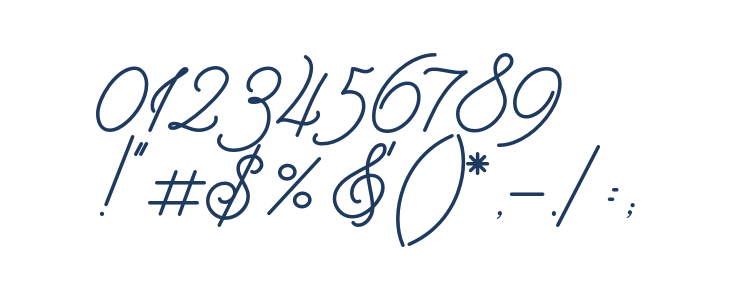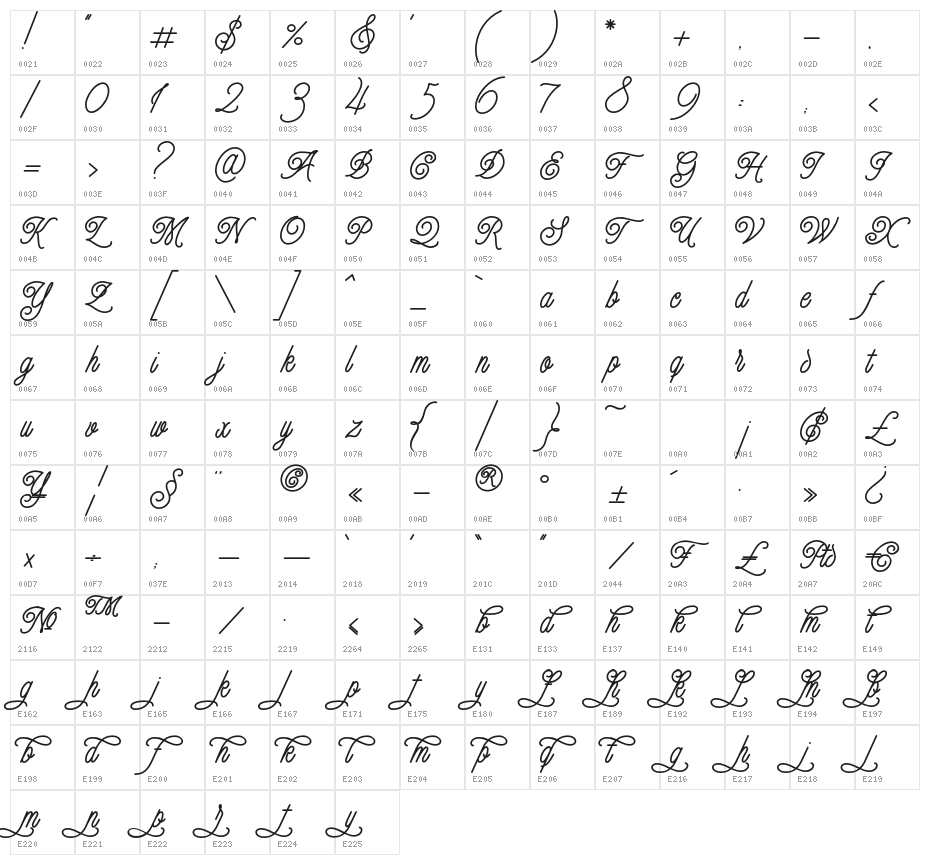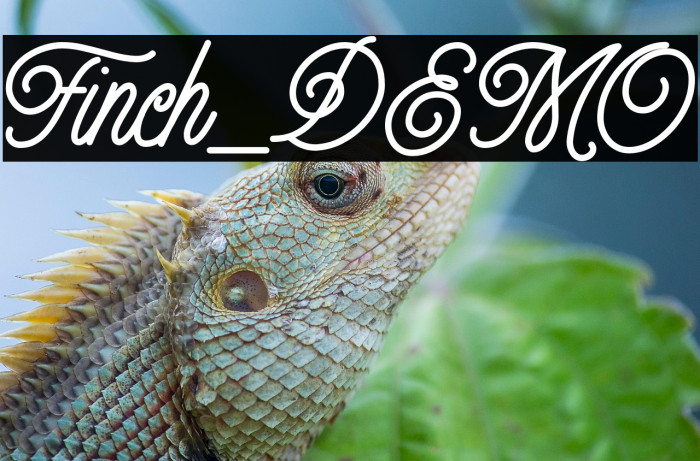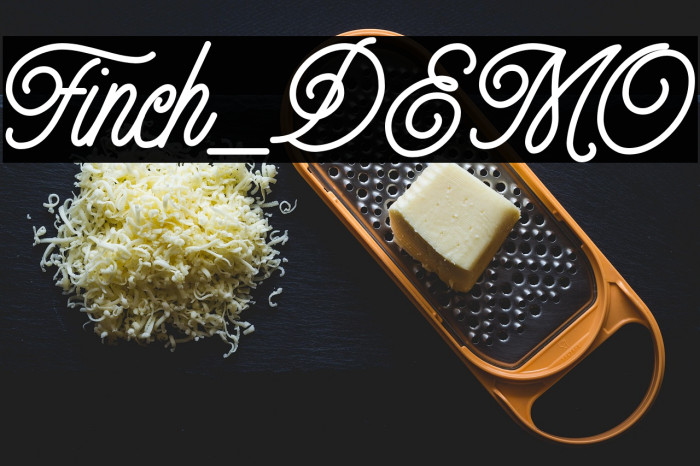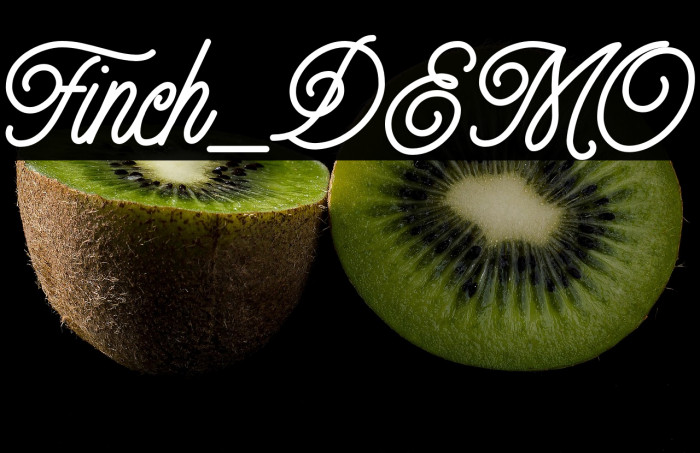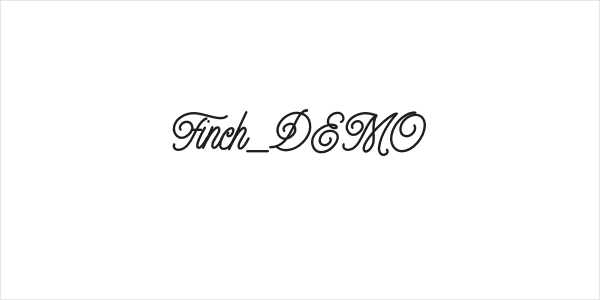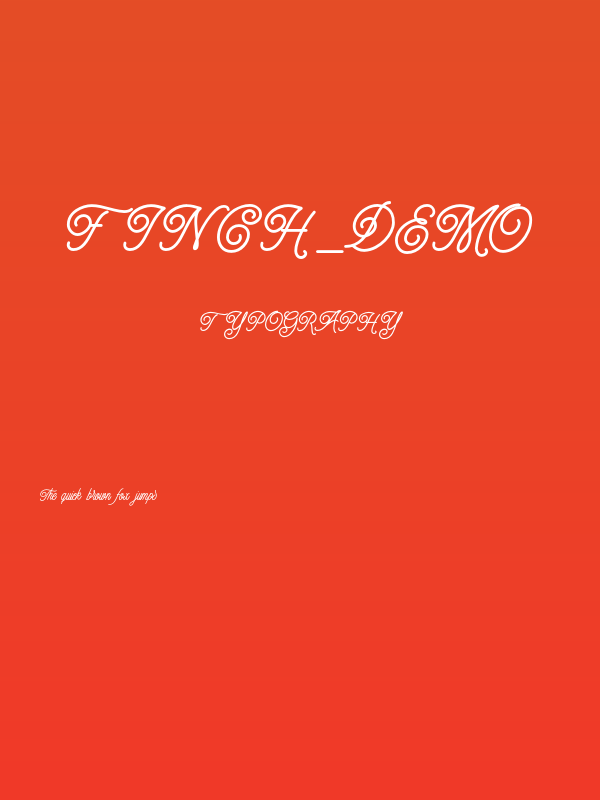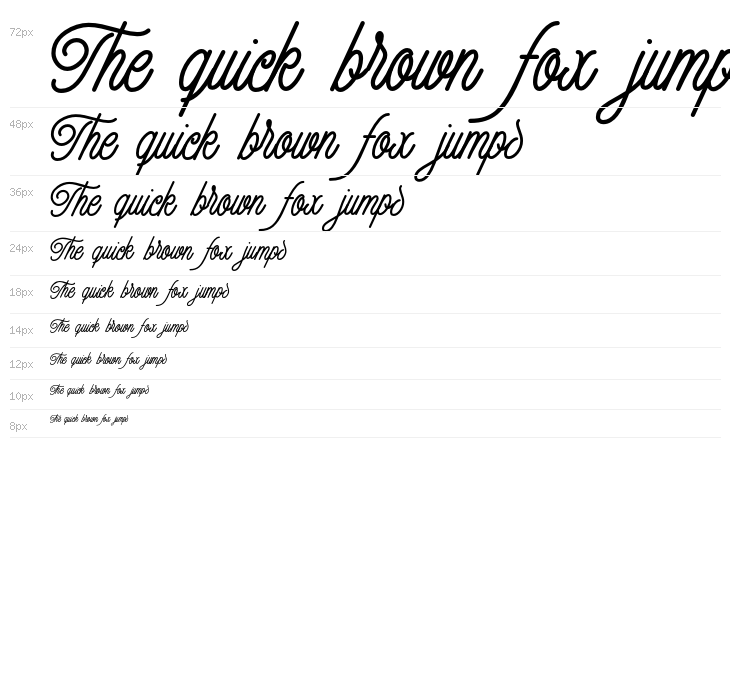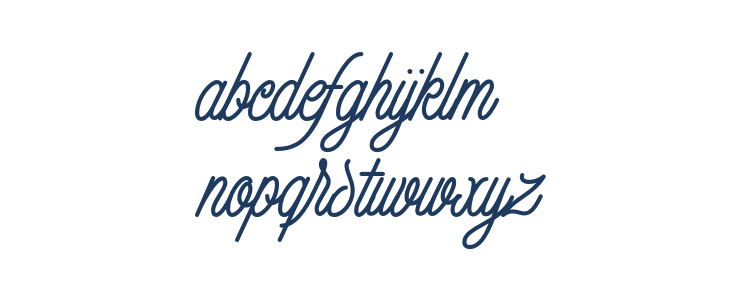
Finch_DEMO Font
Finch_DEMO Description
This elegant script font features beautifully flowing, interconnected letters that exude sophistication and grace. The uppercase letters are adorned with intricate swirls and loops, creating a sense of movement and fluidity. The lowercase letters maintain a consistent style, with smooth curves and a slight slant, enhancing the font's overall elegance. The numerals are equally stylish, with a distinctive flair that complements the alphabet. Special characters are thoughtfully designed to match the font's aesthetic, making it versatile for various design needs.
| Overall Style | Elegant, Decorative |
| Use Case | Invitations, Branding, Decorative Headlines |
| Proposed Projects | Ideal for wedding invitations, elegant branding, luxury product packaging, and decorative headlines. |